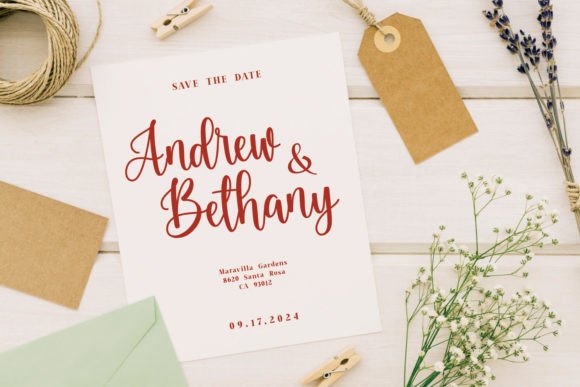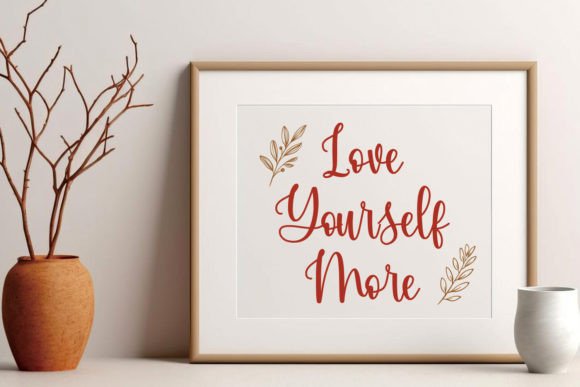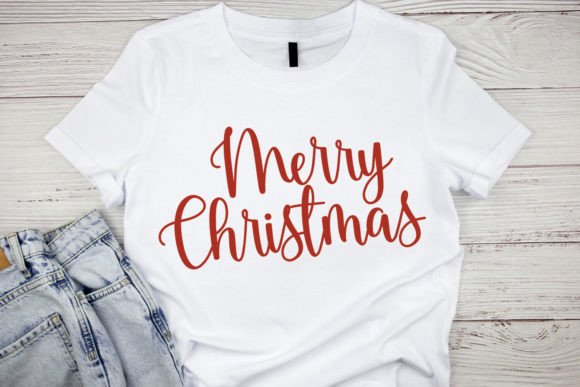
Rainbow Font
Rainbow Font captures the essence of joy and warmth with its charming script handwritten style, perfect for crafting projects imbued with the spirit of Christmas, holidays, and Thanksgiving. This delightful font exudes a playful yet elegant vibe, making it ideal for creating personalized greeting cards, festive decorations, and intricate craft lettering. Its fluid strokes and whimsical curves add a touch of magic to any design, whether you’re crafting holiday-themed banners, embellishing handmade ornaments, or embroidering heartwarming messages onto fabric.
Designed to evoke feelings of cheer and celebration, Rainbow Font lends a unique flair to your crafting endeavors, infusing each project with a sense of whimsy and creativity. Its versatility makes it well-suited for a variety of applications, from adorning handmade gifts to decorating festive invitations and place cards. With Rainbow Font, you can unleash your imagination and bring your holiday crafting visions to life, spreading joy and happiness with every stroke of your pen or brush.
Whether you’re a seasoned crafter or just beginning your journey into the world of DIY creativity, Rainbow Font offers endless possibilities for expressing your holiday spirit. From crafting heartfelt messages of gratitude to embellishing cherished keepsakes with intricate lettering, this enchanting font is sure to become a beloved tool in your crafting repertoire. Let Rainbow Font be your companion as you embark on a journey of festive crafting, spreading love and holiday cheer with each beautifully crafted creation.